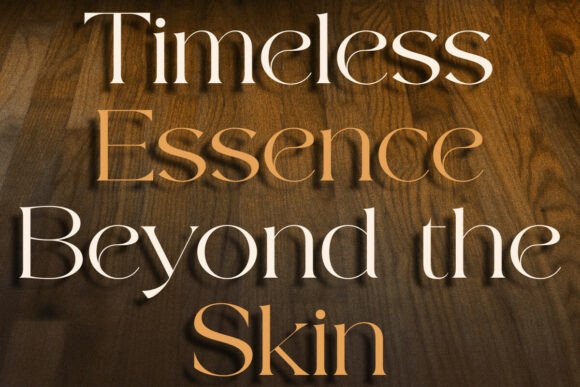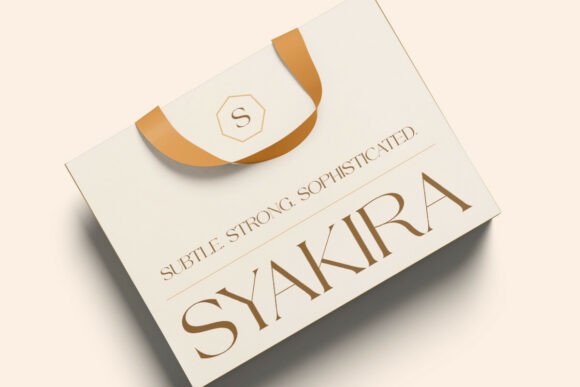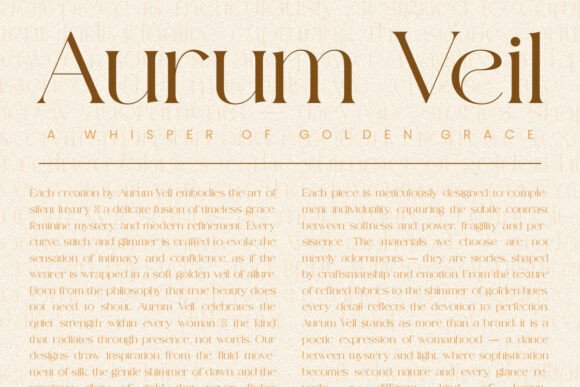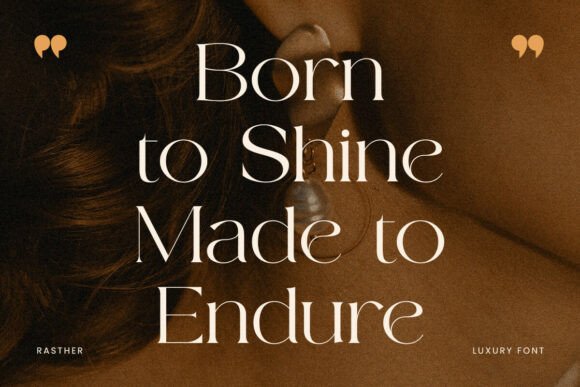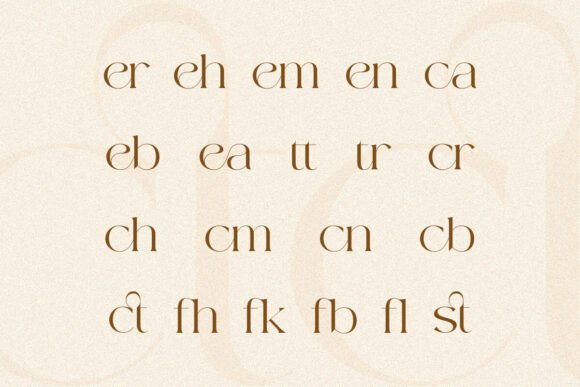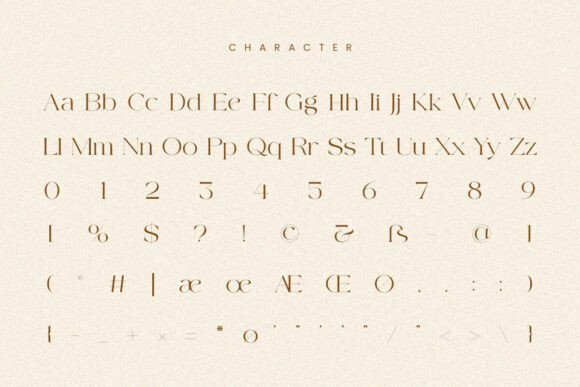
Introduction to Rasther Font
Remember that moment when you stumbled upon the perfect font for your creative project? The one that elevates your design from good to great? For designers, finding the right font can be a game-changer, and that’s exactly what the Rasther Font offers. This luxury serif font combines elegant curves with refined geometry and sharp terminals, creating a sophisticated rhythm that’s perfect for upscale visual identities.
Whether you’re working on a high-end branding project, designing a fashion magazine, or crafting editorial headlines, the Rasther Font is an excellent choice. Its unique signature elements, such as elegant ball terminals and extended stems, add a touch of exclusivity without sacrificing clarity. With its refined details and timeless character, the Rasther Font is sure to bring a sense of confidence and beauty to your designs.
Key Features of Rasther Font
- High-quality vector design with a transparent background, making it perfect for creative projects that require a clean and minimalist look.
- Includes a variety of weights and styles, providing designers with flexibility to customize their designs to suit their needs.
- Designed as a versatile design resource, suitable for a wide range of creative projects, including branding, packaging, and editorial design.
Honest Review: Rasther Font
As a designer, I’m always on the lookout for high-quality design resources to enhance my creative projects. I recently came across the Rasther Font, and I must say it’s a great find.
- ✨ Unique and playful style
However, there are some limitations to the Rasther Font. The font selection is limited, and it may not be suitable for formal or professional designs. Additionally, the font may not be compatible with all operating systems or software.
- ⚠️ Limited font selection
- ⚠️ May not be suitable for formal designs
Tips for Getting the Most Out of Rasther Font
Experiment with different font sizes and styles to find the perfect look for your project. Use Rasther Font in combination with other design elements to create a cohesive and visually appealing design.
Rasther Font is perfect for creative projects that require a high-quality, unique font. Use it for branding, marketing materials, or any other project that requires a professional and eye-catching look.